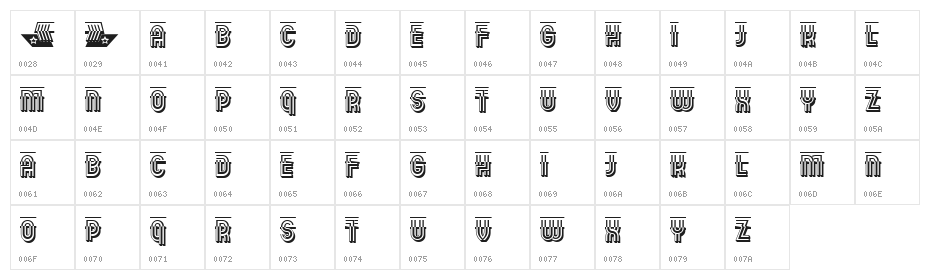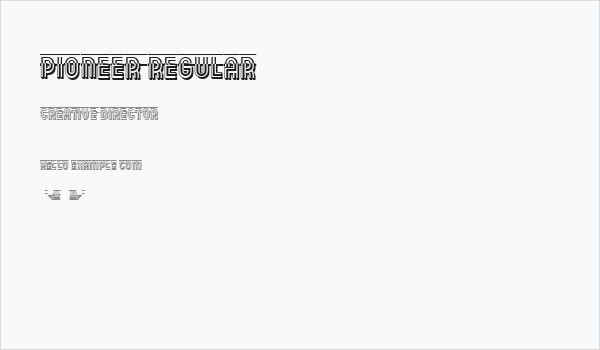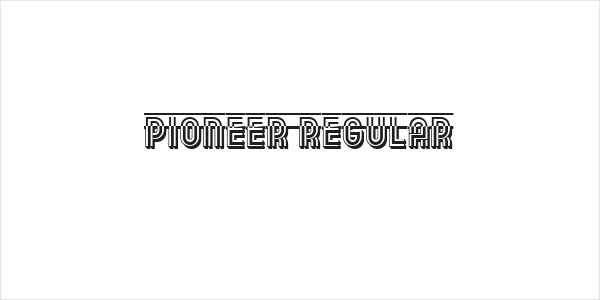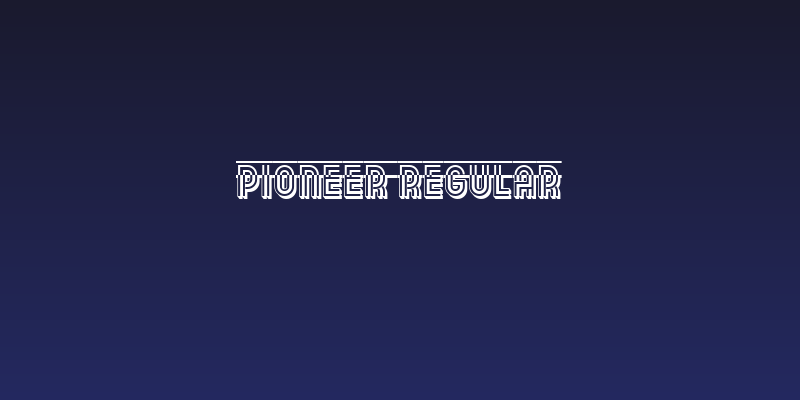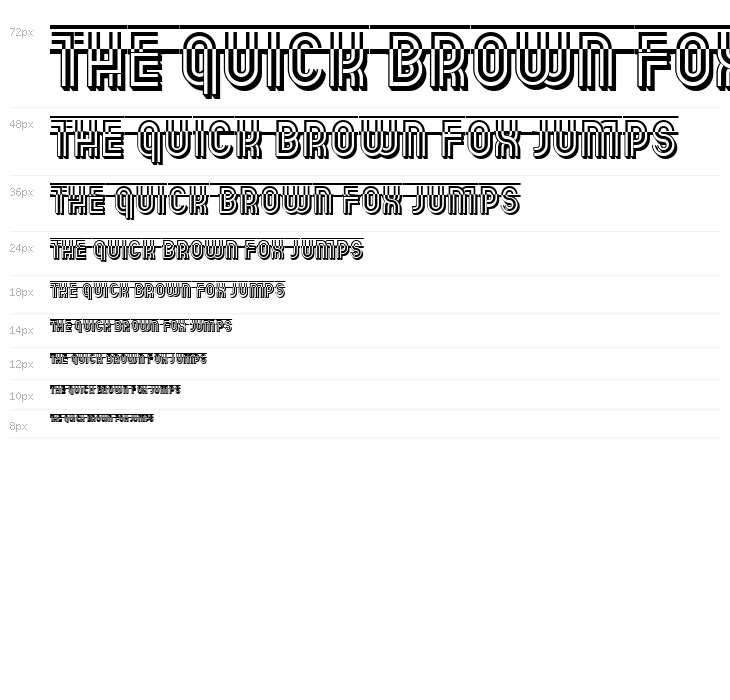
Pioneer Regular Font
Pioneer Regular Description
This font features a bold, geometric design with a distinct three-dimensional effect created by layered lines and shadows. The uppercase letters are uniform in height, with a strong emphasis on vertical and horizontal lines that give it a structured, architectural feel. The font's unique style is reminiscent of retro and futuristic aesthetics, making it stand out with its intricate detailing and bold presence. The absence of lowercase letters and numbers suggests a focus on impactful, statement-making text. Its decorative nature is enhanced by the use of parallel lines and shadowing, which add depth and dimension to each character.
| Overall Style | Retro-Futuristic |
| Use Case | Logos, Posters, Branding |
| Proposed Projects | Ideal for logos, posters, and branding projects that require a striking, memorable typeface. |